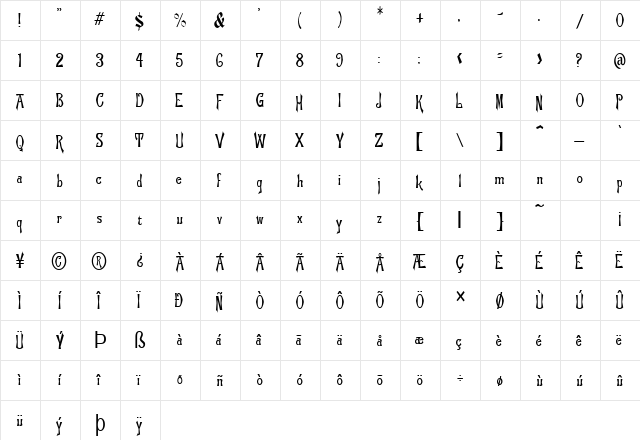
Manchuria-Condensed Normal
Design Context for Manchuria-Condensed Typeface
Manchuria-Condensed takes a measured approach to typography — its balanced proportions and neutral character make it a reliable workhorse for both digital and print work. The condensed width makes it efficient for tight spaces without sacrificing legibility.